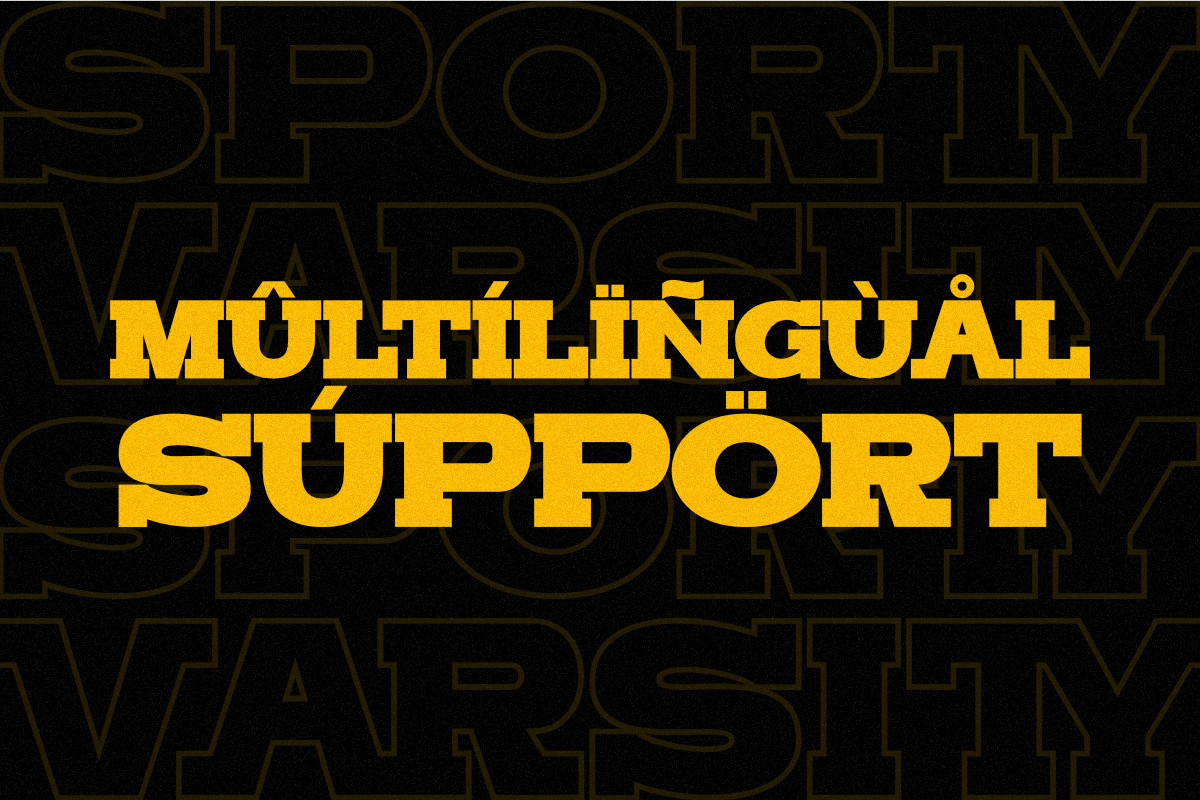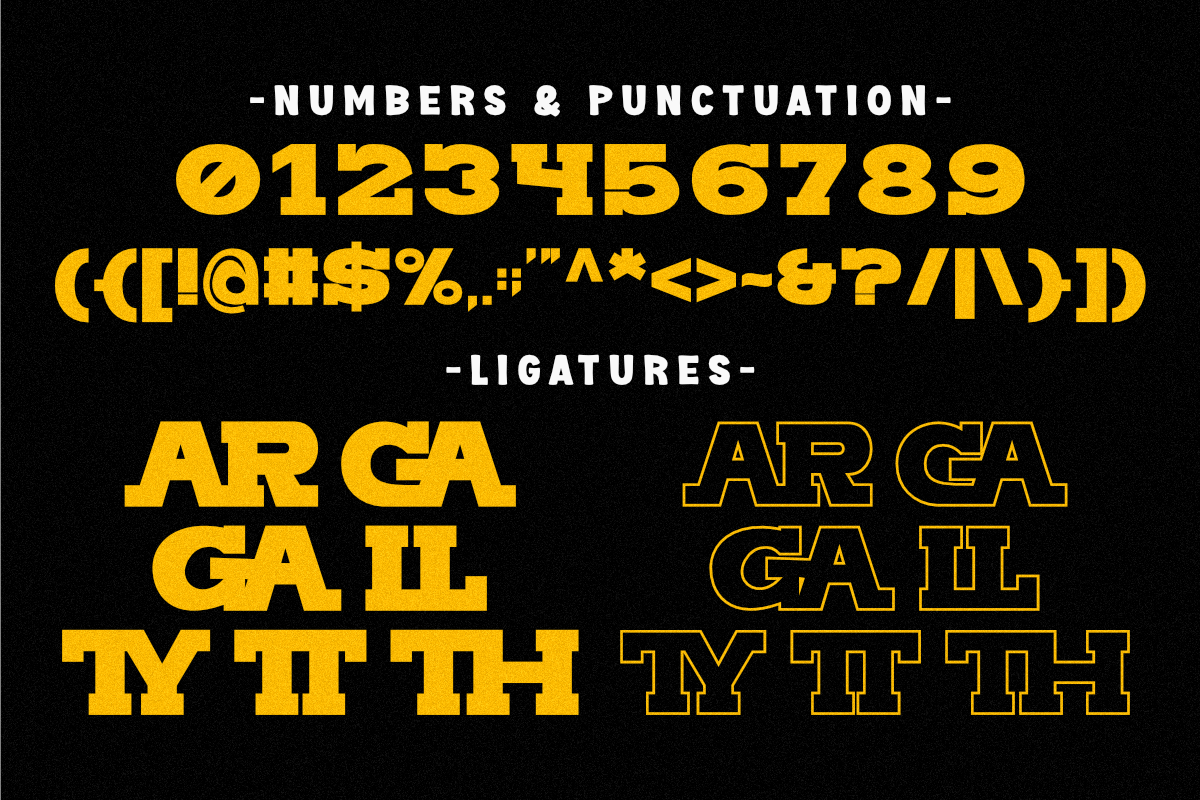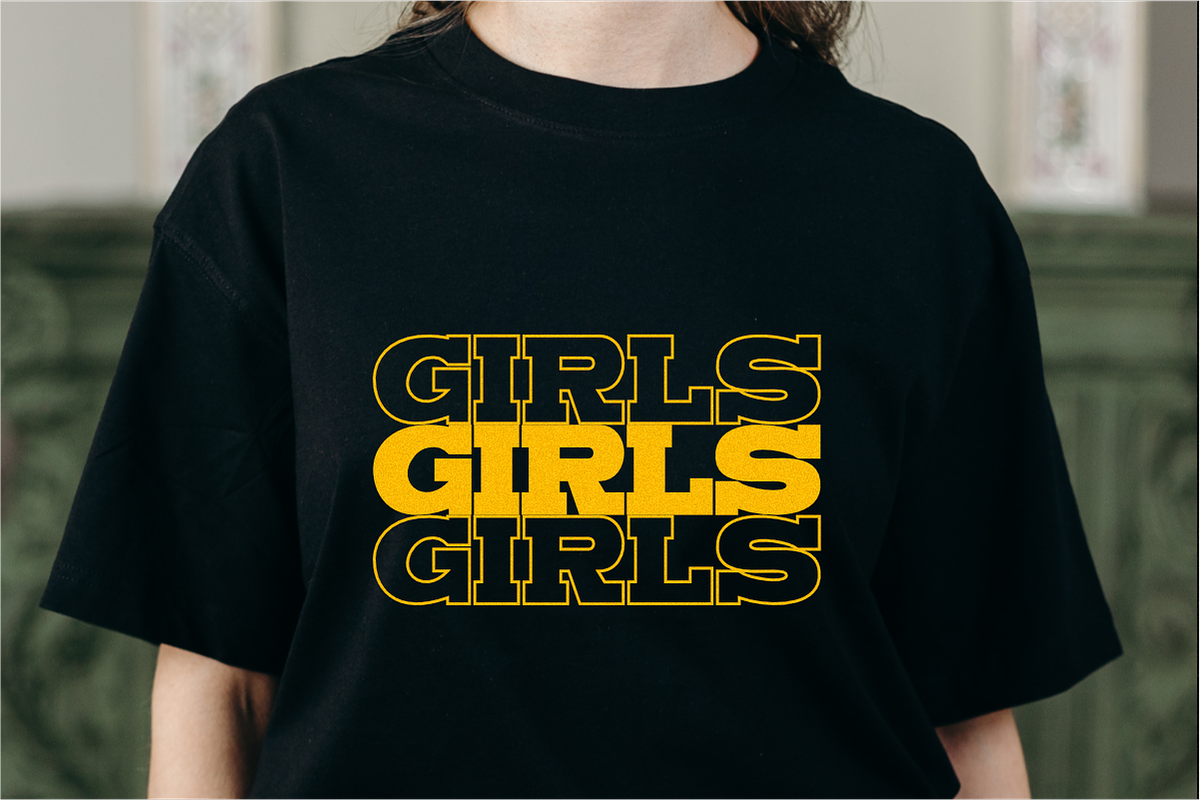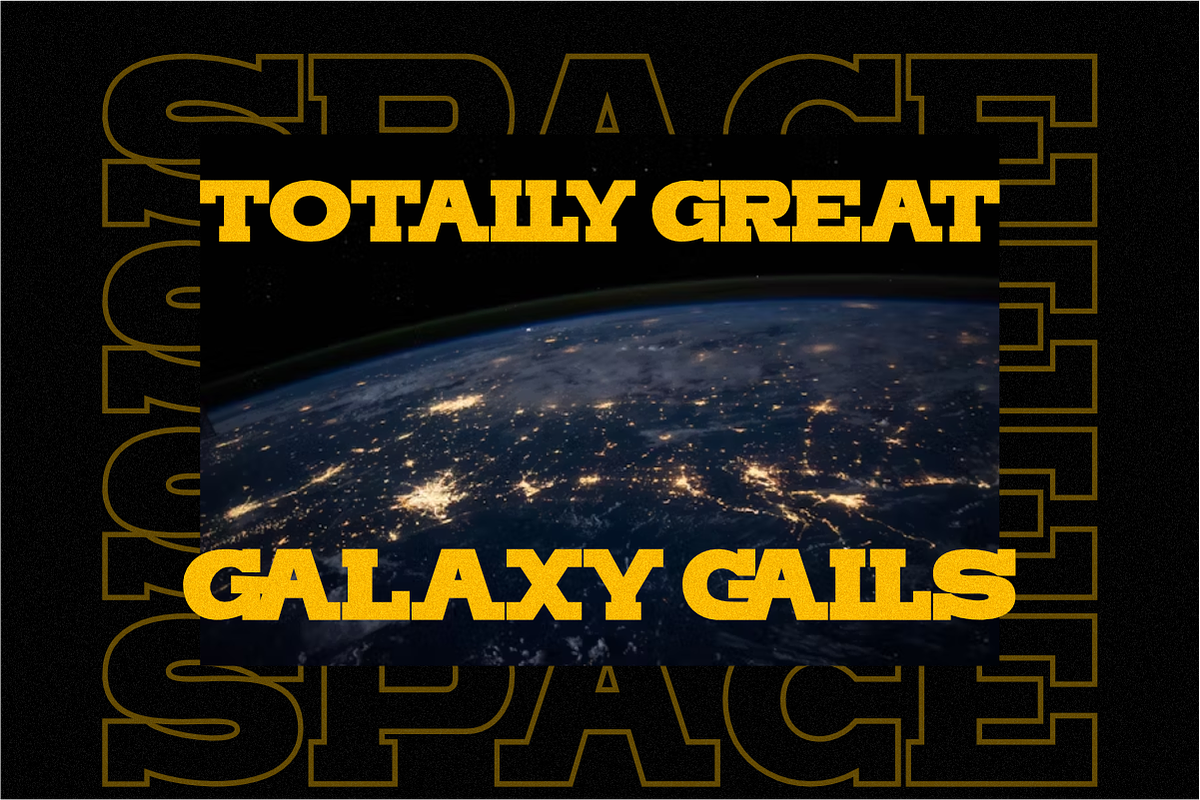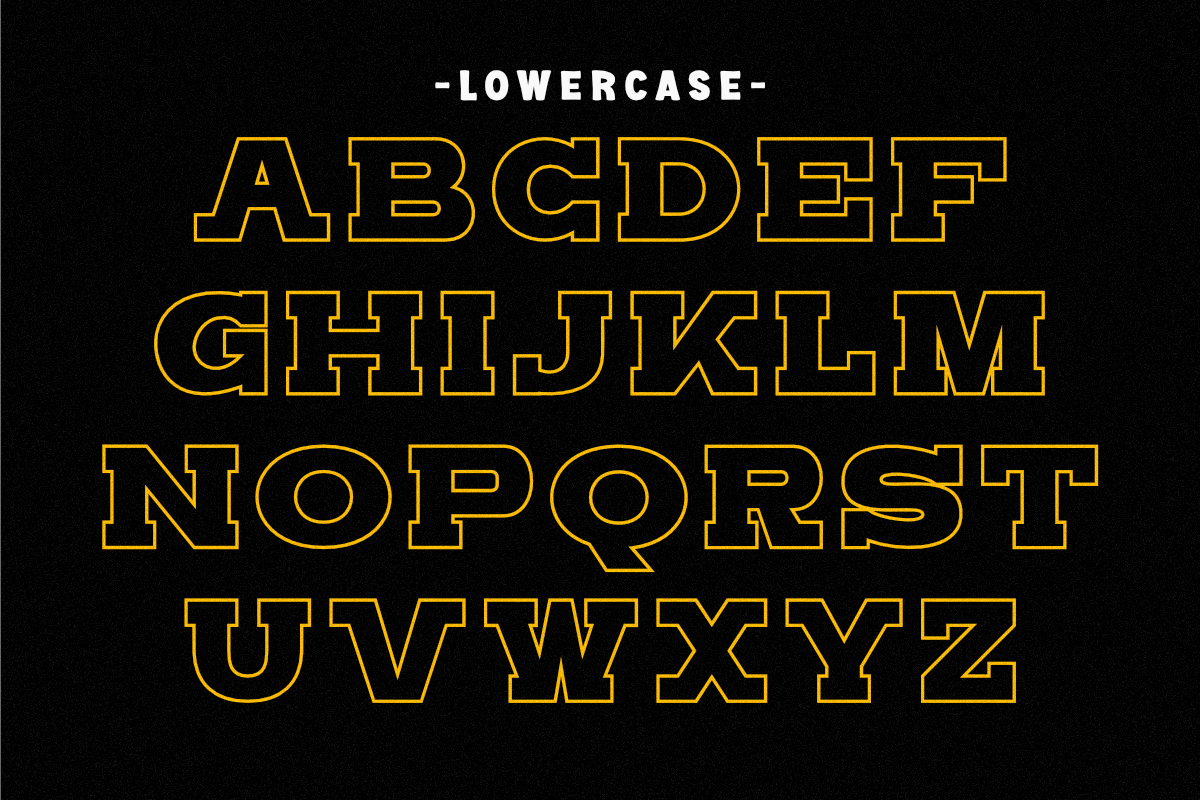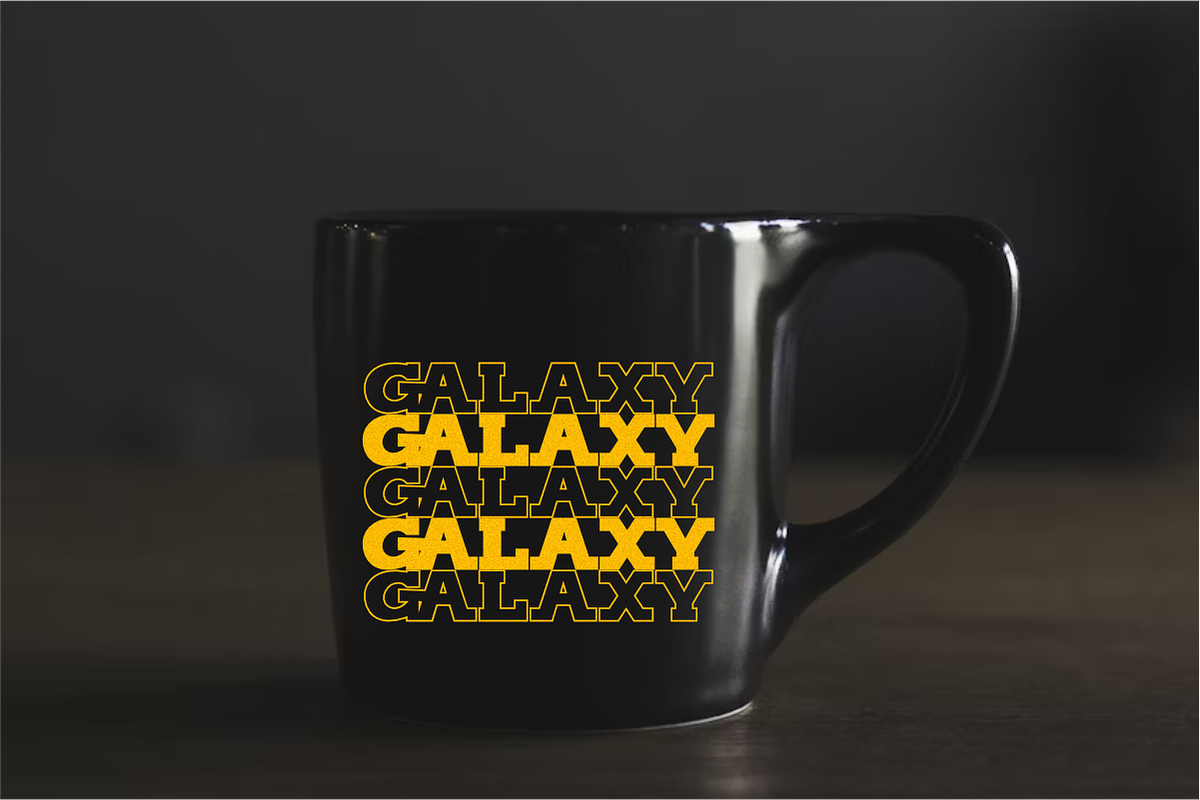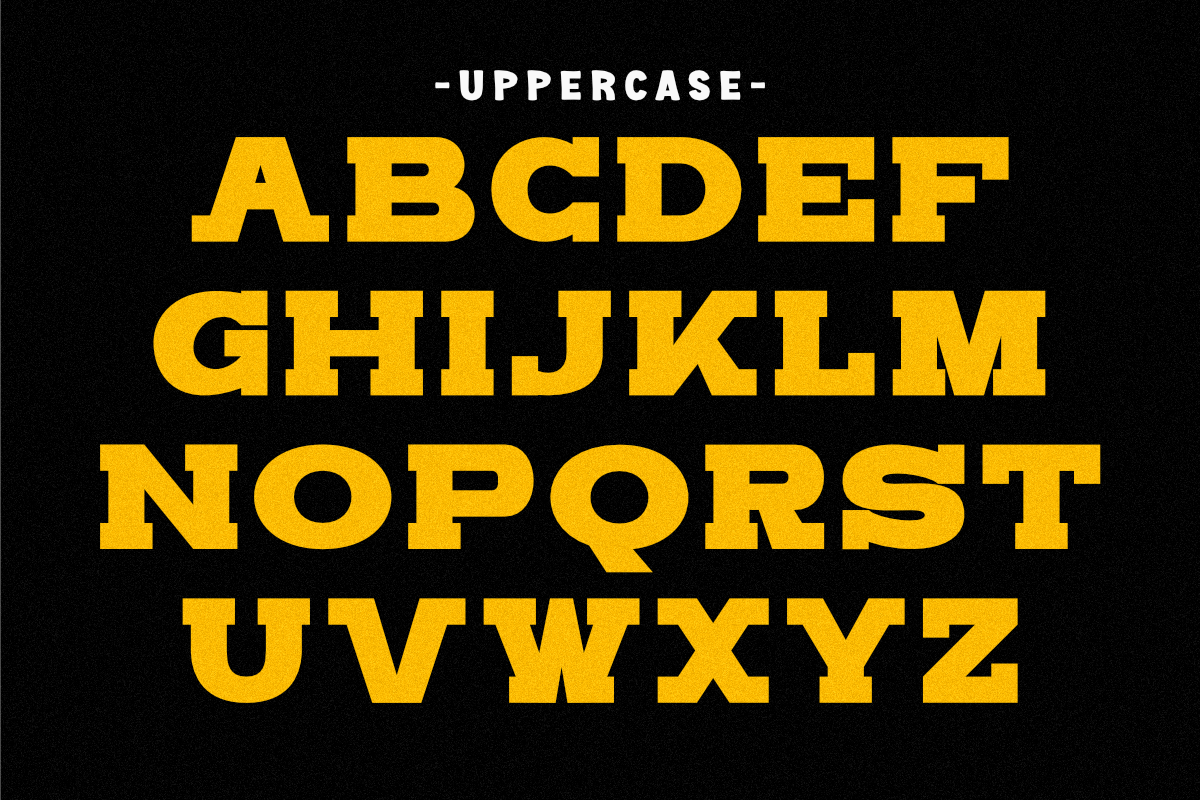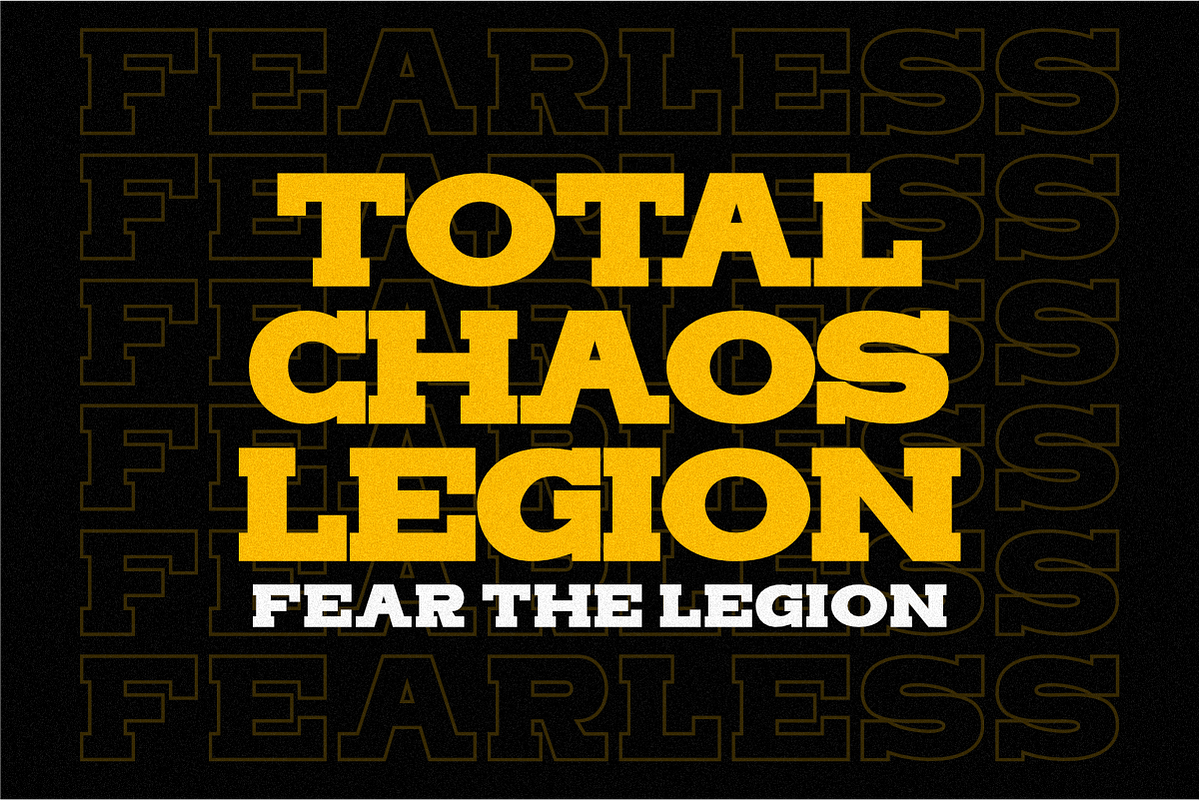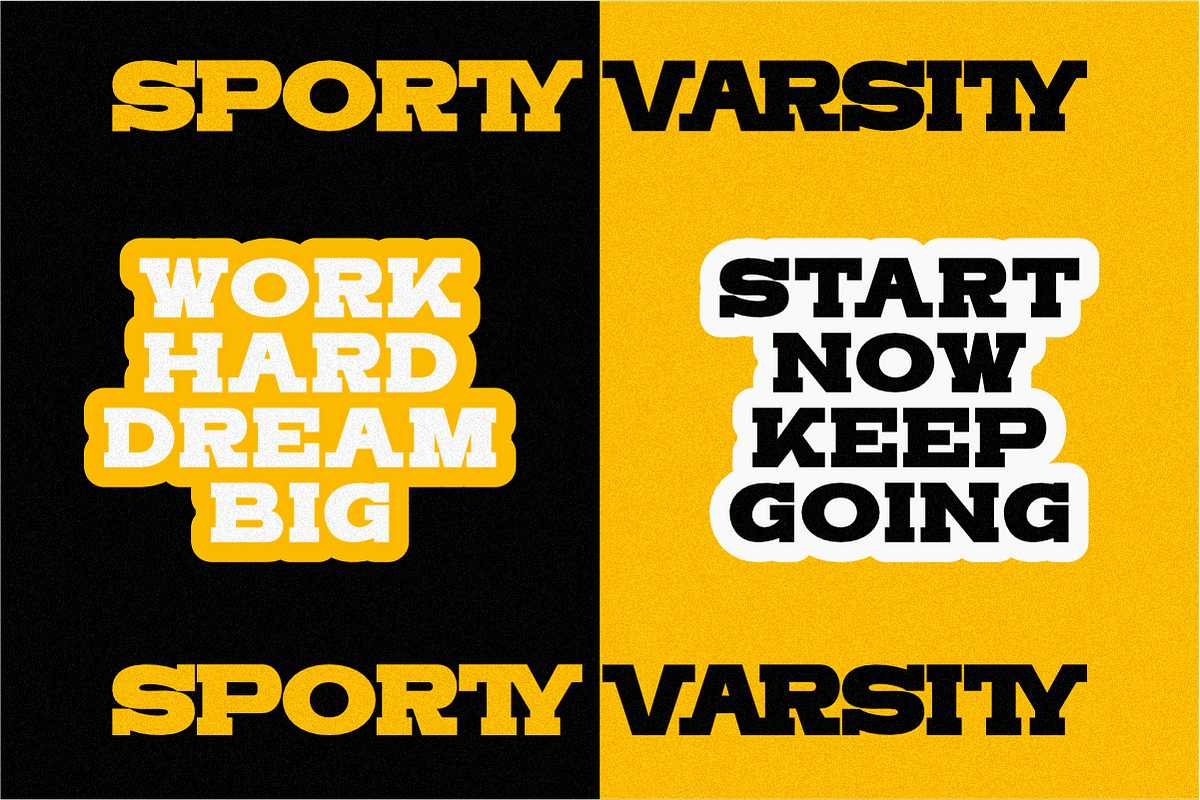
Sporty Varsity - Condensed Slab
Sporty Varsity is a bold and dynamic condensed slab serif typeface inspired by classic college and sports aesthetics. Perfect for creating powerful team logos, varsity jackets, posters, sports event branding, and bold titles, this font comes with Regular and Outline styles that add versatility to your design projects. Its strong letterforms and confident presence make it ideal for athletic apparel, retro headlines, and school spirit designs. Whether you’re crafting a modern sports layout or vintage college look, Sporty Varsity delivers energy, impact, and timeless strength.